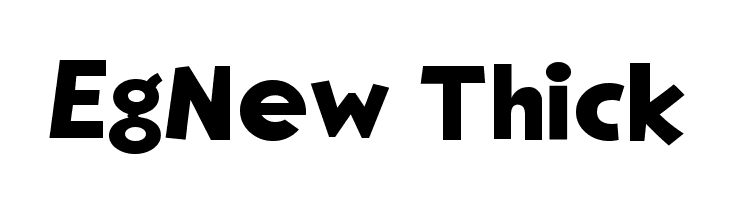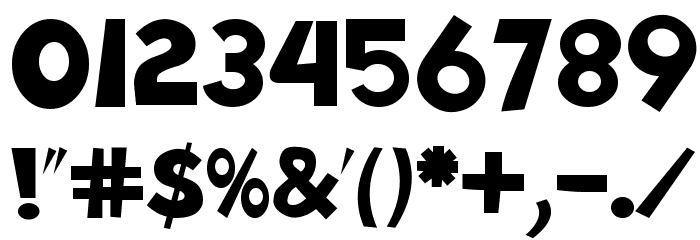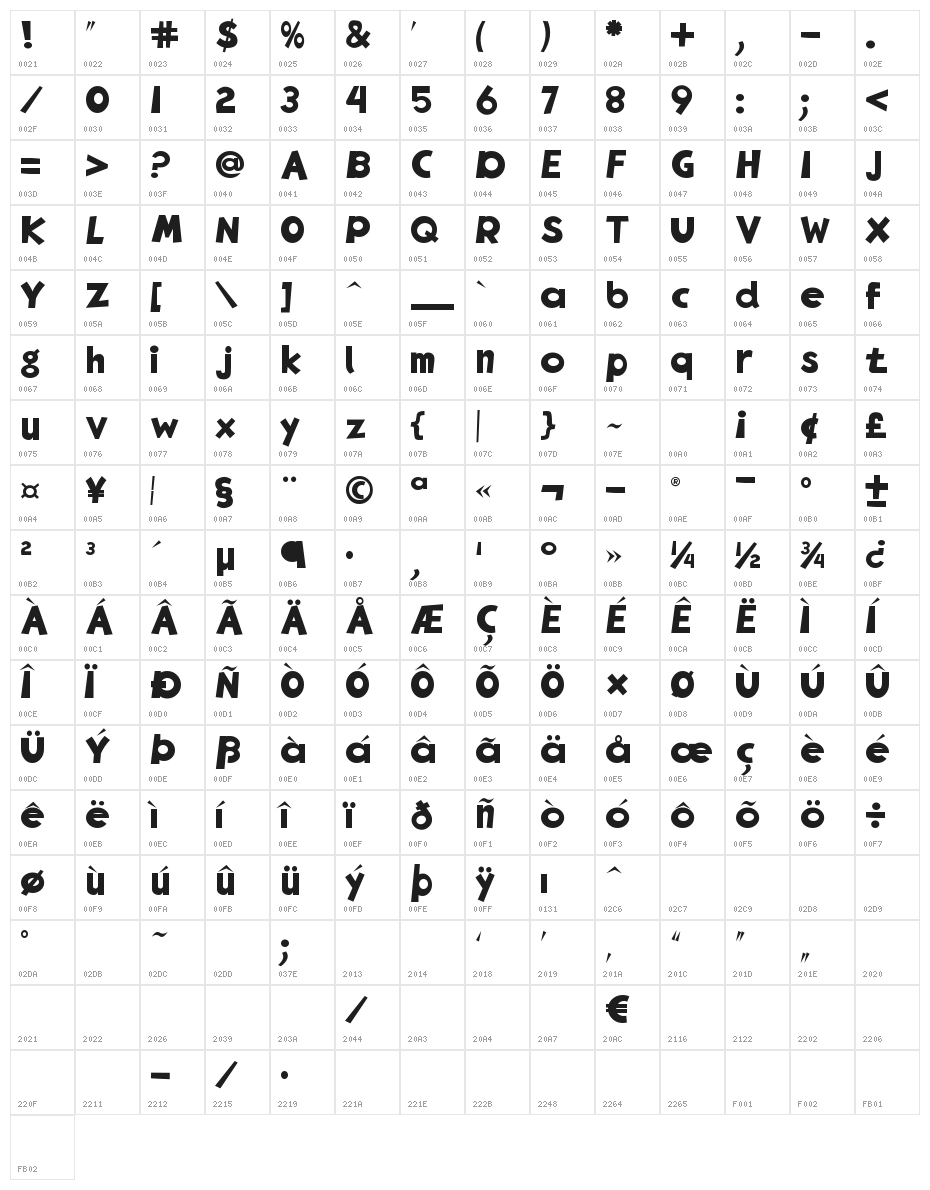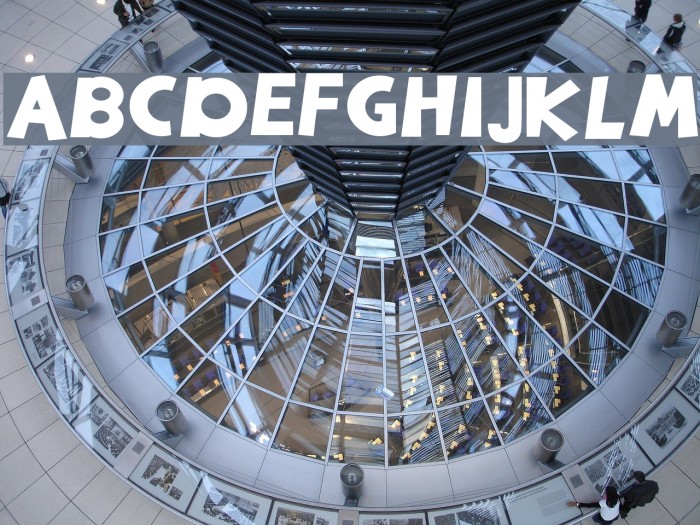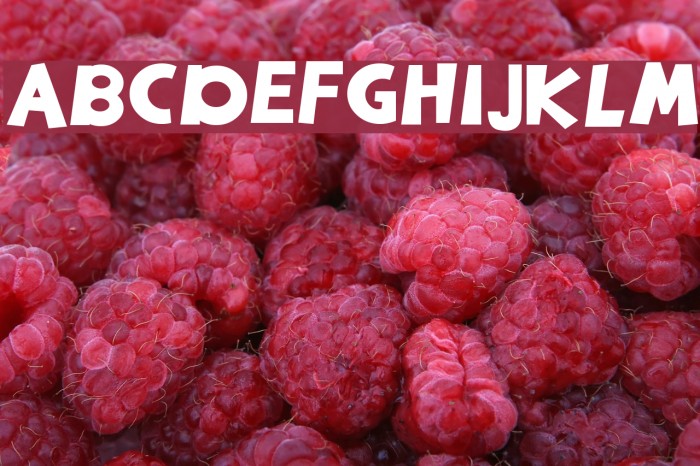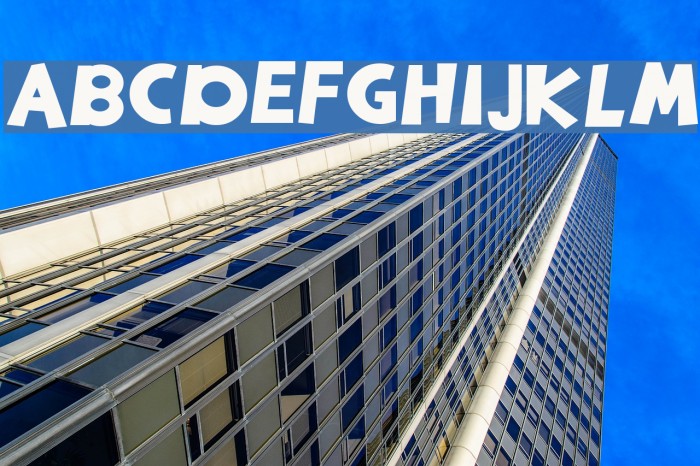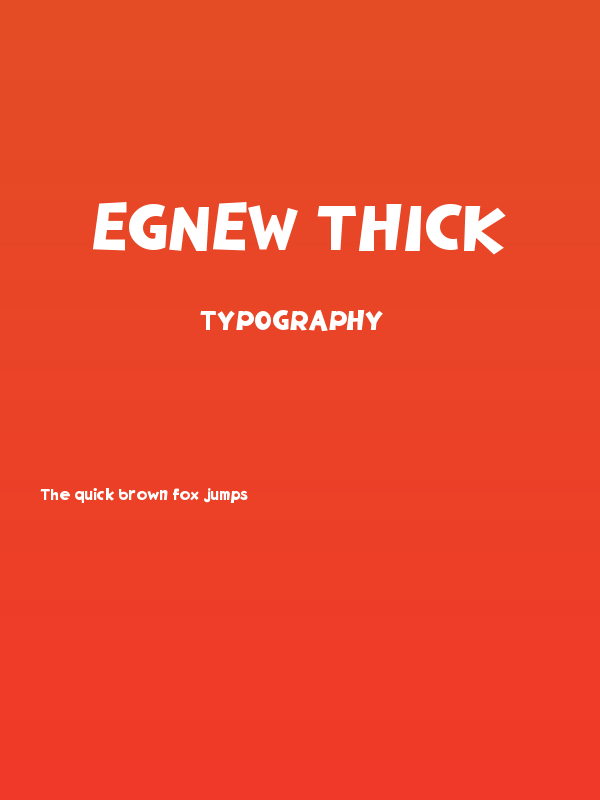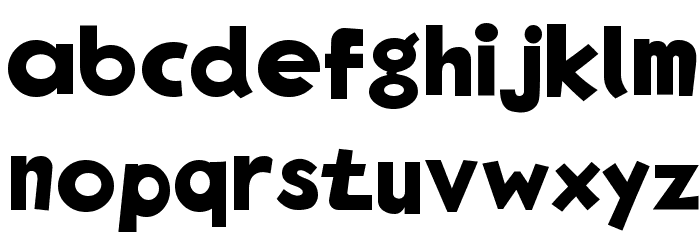
EgNew Thick Font
EgNew Thick Description
This font features bold, thick strokes with a playful and dynamic appearance. The characters are slightly slanted, adding a sense of movement and energy. The uppercase letters are robust and commanding, while the lowercase letters maintain a consistent weight, ensuring readability. The numerals are equally bold, making them stand out effectively. Special characters are designed with the same boldness, ensuring uniformity across all glyphs. The overall style is modern and eye-catching, suitable for making a strong visual impact.